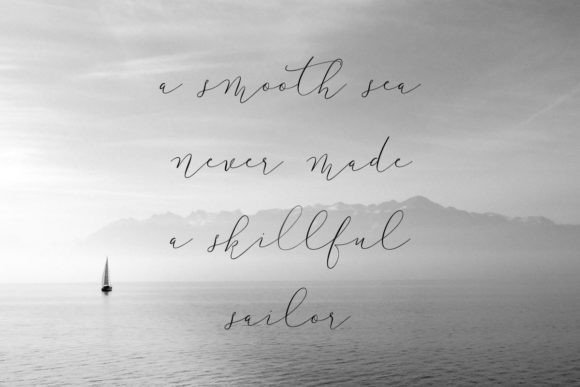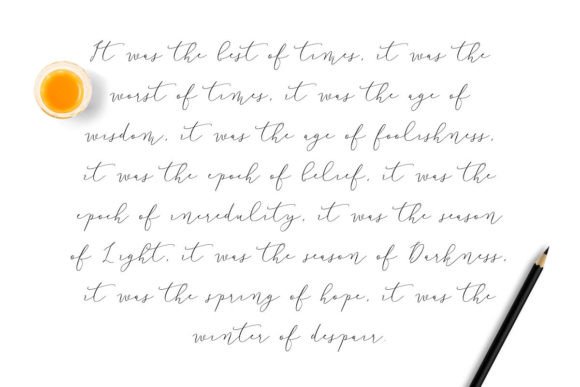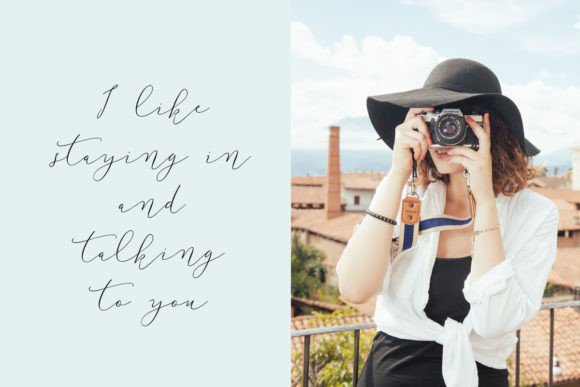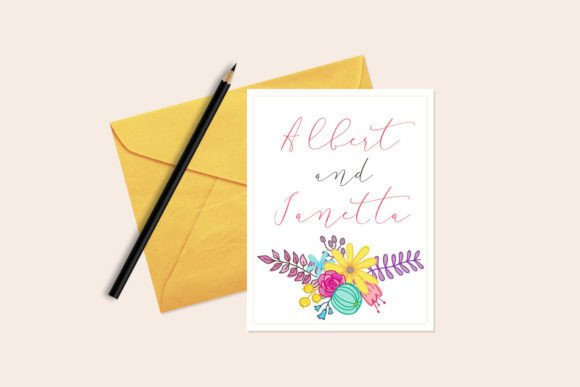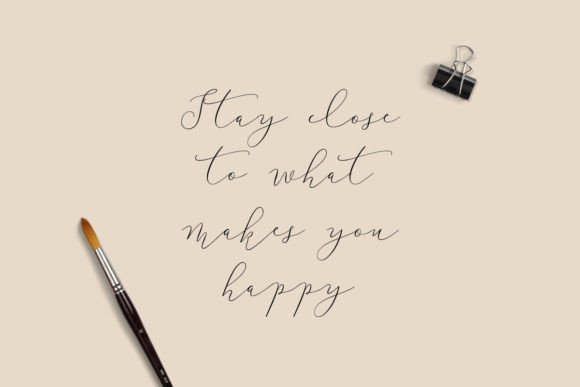
Introducing Anter Font: Elevate Your Designs with Modern Script Elegance
In the world of typography, a font can make or break a design. For designers, crafters, and anyone looking to add a touch of elegance to their projects, Anter Font is a game-changer. This modern script font is meticulously crafted to ensure every letter contributes to making your text not just readable, but truly beautiful. Whether you’re working on photography projects, creating watermarks, designing quotes, blog headers, posters, wedding invitations, branding, logos, fashion apparel, letters, or stationery, Anter Font is the perfect companion.
The Beauty of Modern Script
Anter Font embodies the essence of modern script typography. Its fluid lines and elegant curves bring a sense of sophistication and style to any project. Unlike traditional fonts that might feel stiff or outdated, Anter Font’s modern approach ensures your designs feel current and visually appealing. This versatility makes it an indispensable tool in the arsenal of designers and crafters looking to make a statement.
The applications of Anter Font are vast and varied. Here are a few ideas to get you started:
- Photography: Add a professional touch to your photo watermarks or captions.
- Blogging: Elevate your blog headers and posts with a stylish, modern look.
- Graphic Design: Create stunning posters, flyers, and brochures that stand out.
- Weddings: Design beautiful invitations, wedding certificates, and ceremony programs.
- Branding & Logos: Develop a unique brand identity with custom logos and lettering.
- Fashion & Apparel: Add a touch of elegance to your clothing and accessory designs.
- Customize your text with unique flourishes and details.
Why Choose Anter Font?
With so many fonts available, why choose Anter Font? Here are a few compelling reasons:
- Quality and Craftsmanship: Each letter has been carefully designed for maximum aesthetic appeal.
- Versatility: Suitable for a wide range of projects, from digital to print.
- Modern Style: Adds a contemporary touch to any design.
Anter Font is more than just a script font; it’s a tool that can elevate your designs to new heights. Its modern style, combined with the ease of use provided by PUA encoding, makes it an invaluable resource for designers and crafters. Whether you’re looking to add a touch of elegance to your projects or seeking a font that can keep up with your creative demands, Anter Font is the perfect choice. Explore the possibilities with Anter Font today and discover how it can transform your designs.